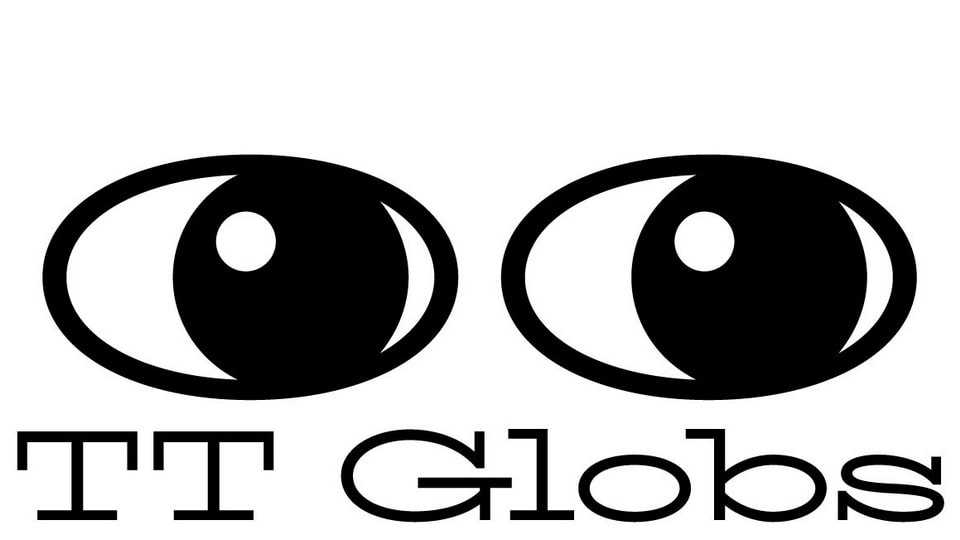
Download TT Globs font, a typeface inspired by the idea to unite historical slabs with contemporary perceptions about fonts, their uses, and display shapes of letters. TT Globs features the long display serifs, which create a unified text image and connect all the letters, especially uppercase, into an almost uninterrupted dynamic chain.
Designer: TypeType Team